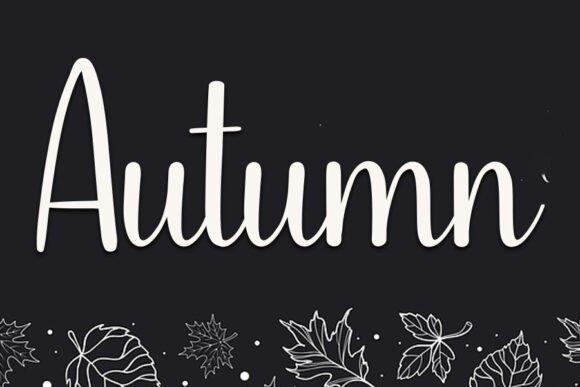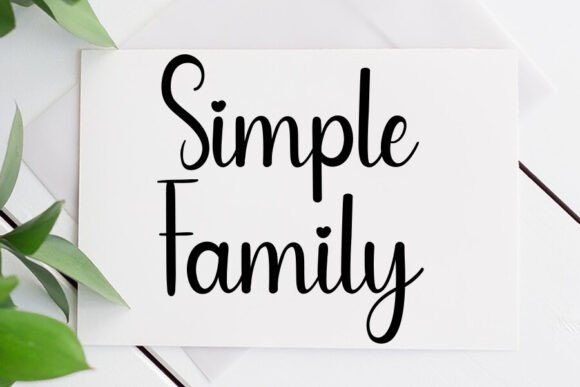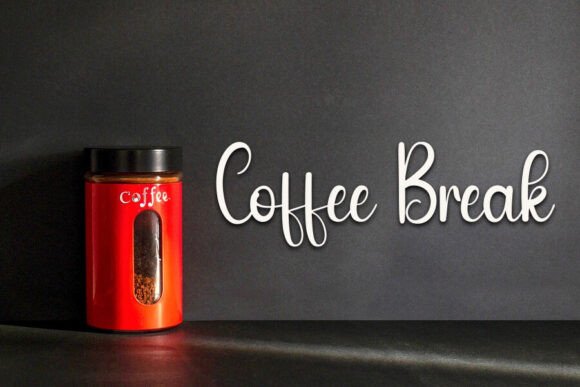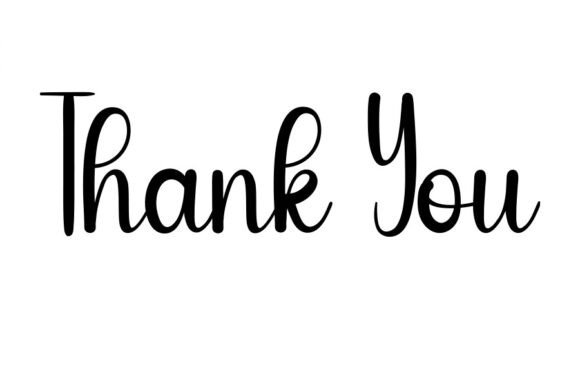
Introducing Blowing Font: The Elegant and Timeless Choice for Holiday Greetings
Are you looking for a font that exudes warmth, festivity, and classic elegance? Look no further than Blowing Font, a beautifully crafted handwritten font that is perfect for holiday greetings, invitations, and more. With its smooth, flowing lines and timeless feel, Blowing Font is sure to become your go-to choice for adding a touch of sophistication and joy to your designs.
The Characteristics of Blowing Font
Blowing Font is a true masterpiece of typographic design, boasting a range of characteristics that set it apart from other fonts. The letters are written in an elegant, handwritten style, with smooth, flowing lines that give the font a sense of movement and fluidity. The classic, timeless feel of Blowing Font makes it perfect for a wide range of design applications, from holiday cards and invitations to party decorations and festive packaging.
The Beauty of Connected Letters
One of the standout features of Blowing Font is the way the letters are gracefully connected, giving the font a warm and festive touch. This connection between letters creates a sense of flow and continuity, making Blowing Font perfect for creating beautiful, cohesive designs that draw the eye and capture the imagination. Whether you’re designing a holiday greeting card, a festive invitation, or a decorative party banner, Blowing Font is the perfect choice.
Blowing Font is a versatile and adaptable font that is perfect for designers and crafters alike. Whether you’re creating digital designs or handmade crafts, Blowing Font is the perfect choice for adding a touch of elegance and sophistication to your work. With its smooth, flowing lines and classic, timeless feel, Blowing Font is sure to inspire your creativity and help you create beautiful, eye-catching designs that will delight and impress.
Using Blowing Font in Your Designs
So how can you use Blowing Font in your designs? The possibilities are endless! Here are a few ideas to get you started:
- Holiday greeting cards and invitations: Blowing Font is perfect for creating beautiful, festive holiday greetings that will delight your friends and family.
- Party decorations: Use Blowing Font to create decorative party banners, garlands, and other festive decorations that will add a touch of elegance and sophistication to your party.
- Festive packaging: Add a touch of festivity to your gifts and packages with Blowing Font, perfect for holiday gifts, party favors, and more.
- Digital designs: Use Blowing Font in your digital designs, such as social media graphics, blog posts, and more, to add a touch of elegance and sophistication.
Tips and Tricks for Working with Blowing Font
Here are a few tips and tricks for working with Blowing Font:
- Experiment with different colors and textures: Blowing Font looks beautiful in a range of colors and textures, so don’t be afraid to experiment and find the perfect combination for your design.
- Play with font sizes: Blowing Font looks great in a range of font sizes, from large and bold to small and delicate.
- Combine with other fonts: Blowing Font pairs beautifully with other fonts, so don’t be afraid to combine it with other typography to create a unique and eye-catching design.
In conclusion, Blowing Font is a beautiful and elegant handwritten font that is perfect for holiday greetings, invitations, and more. With its smooth, flowing lines and classic, timeless feel, Blowing Font is sure to become your go-to choice for adding a touch of sophistication and joy to your designs. Whether you’re a designer or crafter, Blowing Font is a versatile and adaptable font that is sure to inspire your creativity and help you create beautiful, eye-catching designs.